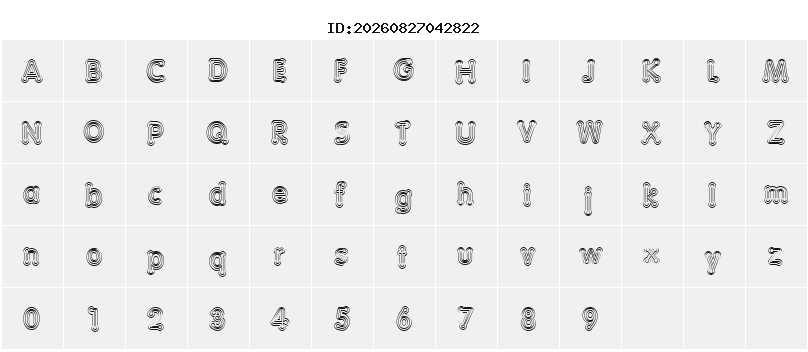
684-CAI978 Preview
• Font Name: 684-CAI978
• Font ID: 684-CAI978:Version 1.00
• Full Font Name: 684-CAI978
• Version: Version 1.00 January 1, 1904, initial release
• PostScript Name: 684-CAI978
• Character Count: 196
About 684-CAI978.ttf
684-CAI978.ttf is a modern, elegant sans-serif font designed for ultimate readability and visual harmony. Perfect for branding, headlines, web design, and print materials.